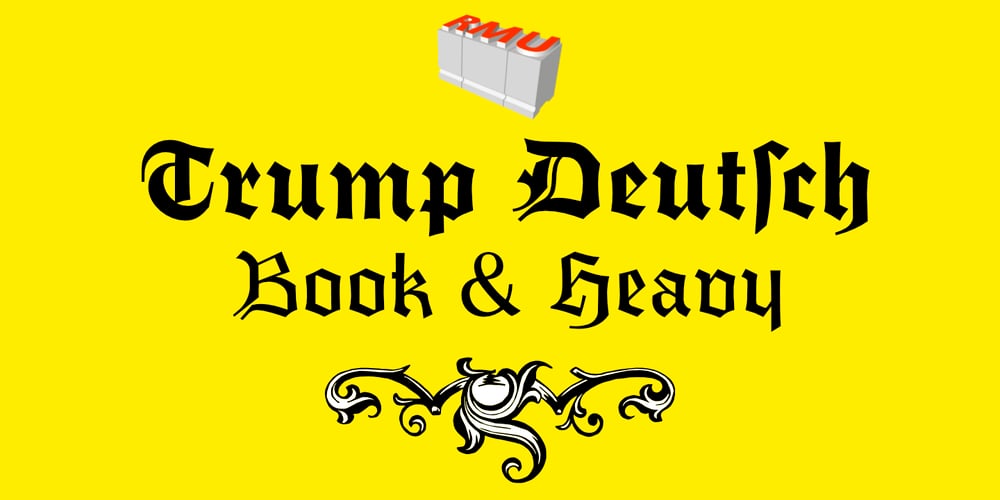
Trump Deutsch Font Family was designed by Ralph M. Unger and published by RMU. Trump Deutsch contains 2 styles and family package options. This rather modern versions of a Gothic style blackletter were originally drawn by Georg Trump in 1936 and 1937 respectively.To access all ligatures, I recommend to activate both OT features, standard and discretionary ligatures.